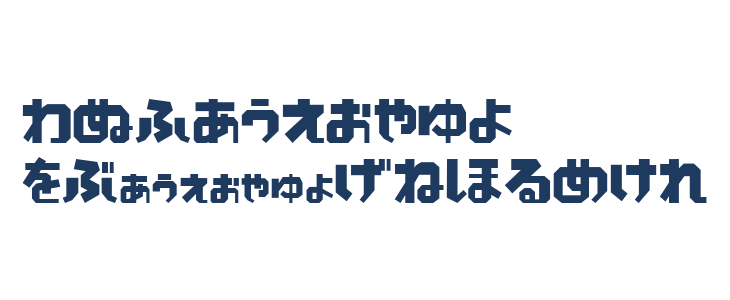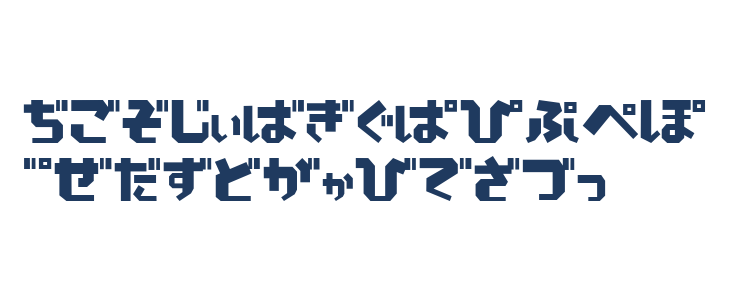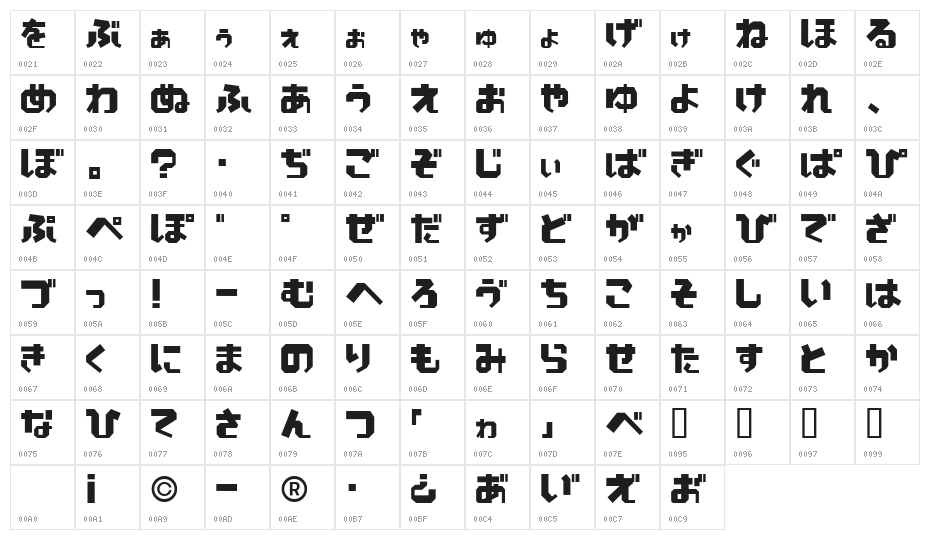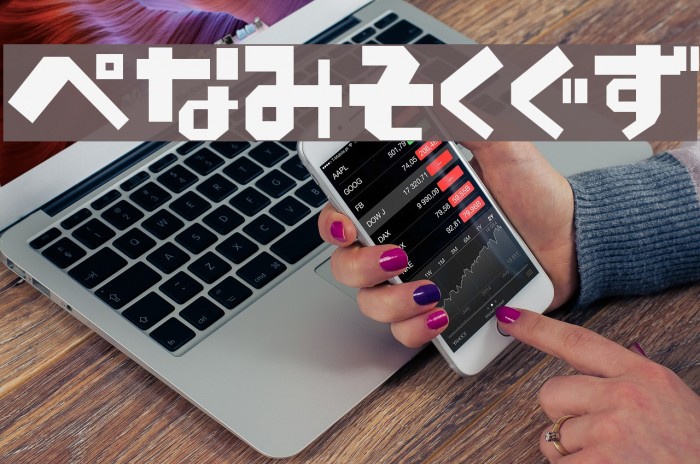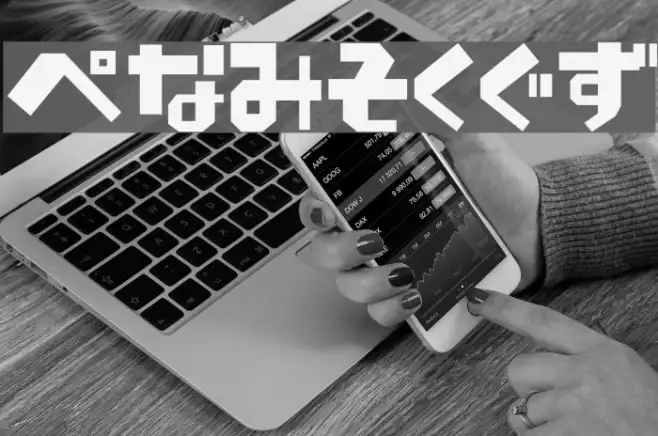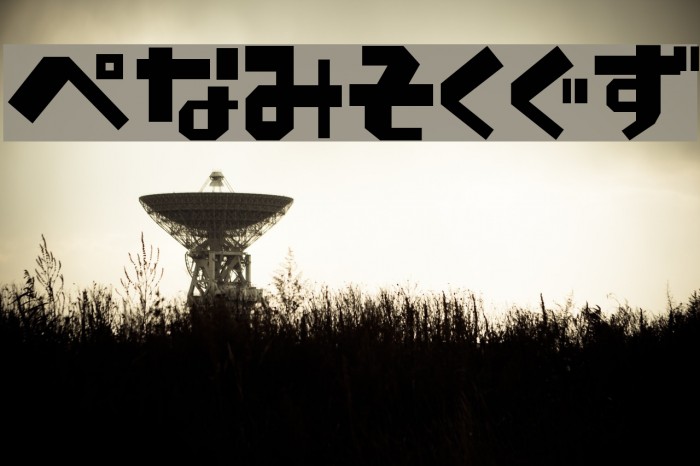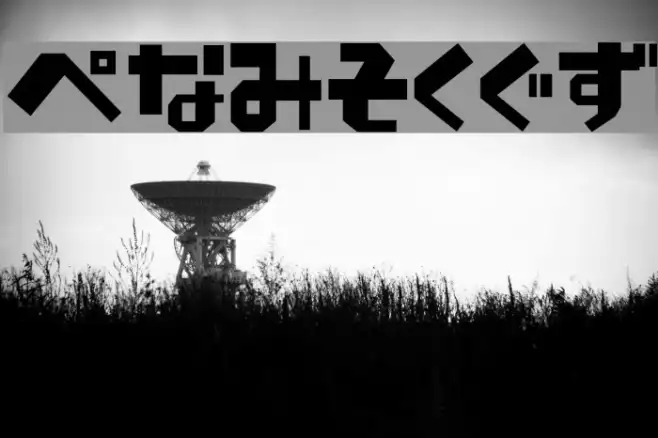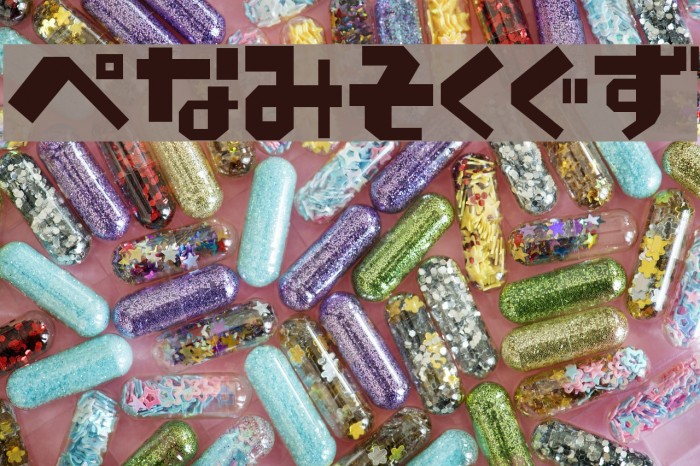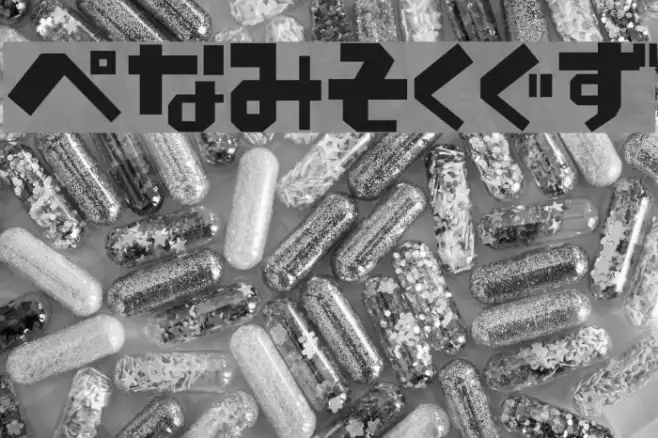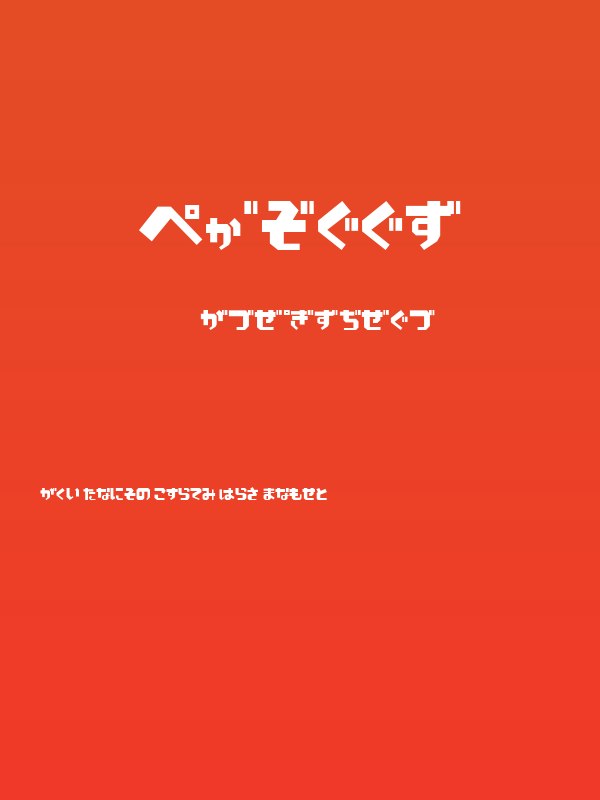
LunchHR Font
This font features bold, geometric shapes with a strong presence. The characters are designed with sharp angles and a blocky appearance, giving it a modern and edgy feel. The strokes are consistent in width, providing a uniform look across all characters. The font's style is reminiscent of digital or pixel art, making it suitable for contemporary designs. It maintains a high level of legibility despite its unique style, making it versatile for various applications.
| Proposed Projects | Ideal for digital art, video game interfaces, tech branding, and modern posters. |